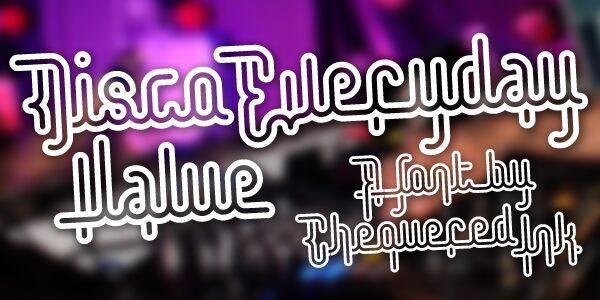
Disco Everyday Value, a font crafted by Chequered Ink, radiates a captivating groovy essence. With its outlined style and condensed width, this display font exudes a retro-inspired, eye-catching allure. The playful, undulating letterforms evoke a sense of movement and energy, making it an ideal choice for bold headings, logotypes, and eye-catching design elements.
Disco Everyday Value's distinctive visual character lends itself well to a variety of applications, from vintage-inspired branding and packaging to vibrant event posters and album covers. Its versatility allows designers to infuse a touch of retro-futuristic flair into their projects, capturing the spirit of the disco era with a contemporary twist. Whether used as a standout accent or as the focal point of a design, this font is sure to captivate and engage the viewer.